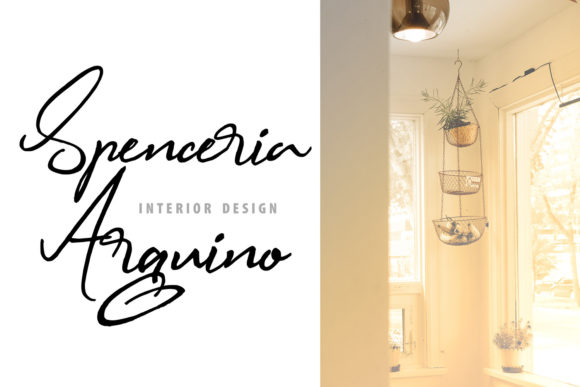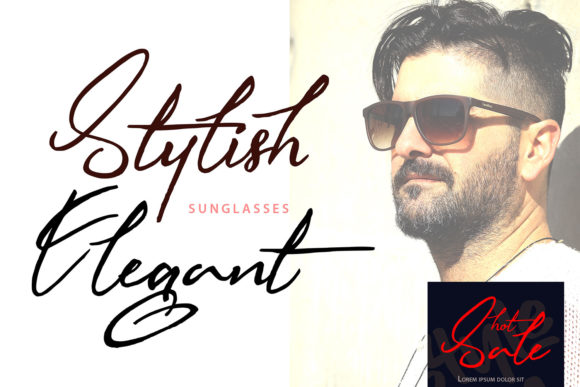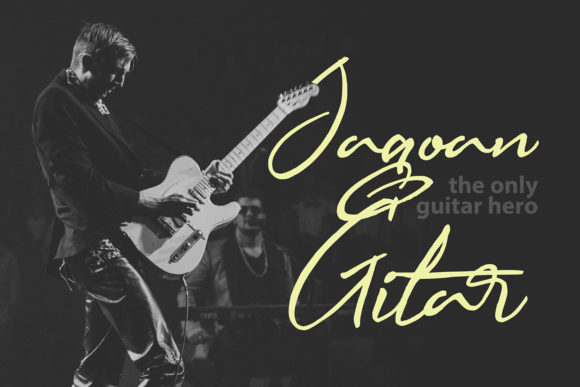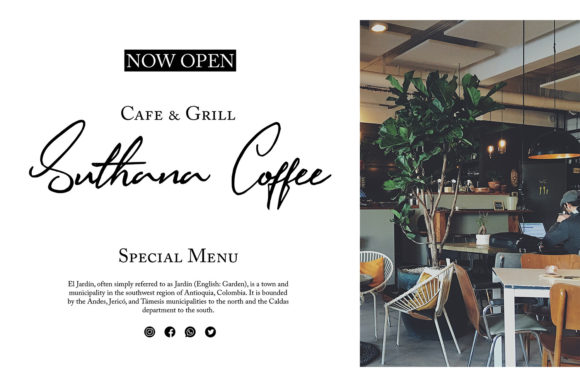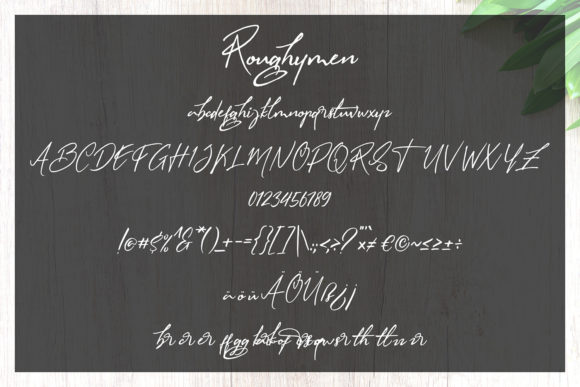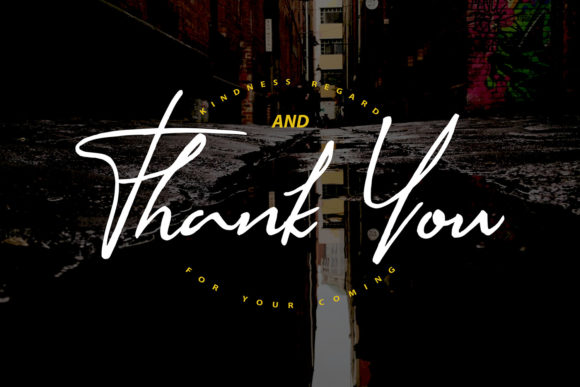
Introduction to Roughymen Font
As designers, we’ve all been there – staring at a blank canvas, struggling to find the perfect font to bring our creative project to life. It’s a moment of pure frustration, until suddenly, the perfect script font appears, and our design takes off. For many of us, that perfect font is the Roughymen Font, a stunning script font that adds a touch of elegance to any design.
Whether you’re designing wedding invitations, thank you cards, or logos, the Roughymen Font is an invaluable resource for designers. Its high-quality design makes it a go-to choice for any creative project that requires a handwritten touch. And the best part? It’s available for free download, making it a transparent background of possibilities for your designs.
With its versatility and unique charm, the Roughymen Font is a must-have in every designer’s toolkit. In this article, we’ll delve into the world of this incredible font, exploring its features, uses, and why it’s a valuable addition to any design resource.
Key Features of Roughymen Font
- High-quality design resource ideal for creative projects and publications
- Unique, distressed texture design with a transparent background for versatility
- Perfect for use in graphic design, digital art, and typography projects
- Unique, hand-drawn feel with a mix of rough and smooth textures for added visual interest
Honest Review: Roughymen Font
As a designer, I’m always on the lookout for high-quality design resources to elevate my creative projects. The Roughymen Font is a great addition to my collection, offering a unique and rugged aesthetic that’s perfect for edgy designs.
Here are some things that work well with the Roughymen Font: ✨
- Unique and distressed design: The font’s rough, hand-drawn texture adds a layer of depth and visual interest to any design.
- Transparent background: This feature makes it easy to use the font on any background, without worrying about awkward edges or borders.
However, I do have a few limitations to note: ⚠️
- Not ideal for body text: While the font is great for headings and titles, it’s not the best choice for large blocks of body text, as it can be difficult to read.
- Not suitable for all design styles: The font’s rough, distressed texture may not be the best fit for all design styles, particularly those that require a more clean and minimalist look.
Overall, I’m impressed with the Roughymen Font and would recommend it to designers looking for a unique and high-quality design resource. While it may have some limitations, it’s a great addition to any design toolbox.
Roughymen Font
The Roughymen Font is a high-quality design resource ideal for creative projects that require a rugged and distressed look. It’s available for free download with a transparent background, making it easy to incorporate into various designs.
Tips for Getting the Most Out of Roughymen Font
To get the most out of the Roughymen Font, use it in conjunction with other design elements, such as textures and images, to create a cohesive and distressed look. Experiment with different font sizes and styles to add depth and interest to your design.
Common Use Cases for Roughymen Font
The Roughymen Font is ideal for use in creative projects that require a distressed or rugged look, such as:
Branding and logos
Posters and flyers
Business cards and letterheads
Web design and development